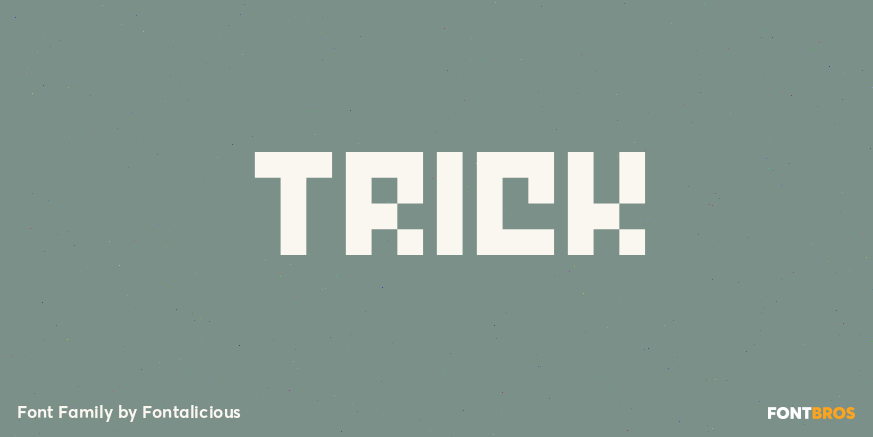
Trick
About Trick
Trick started out as me playing with some squares in Fontographer, and before I knew it, there were seven wonderful typefaces chillin on my desktop. I don\’t expect you to use all seven, I don\’t expect you to like all seven, but see, here\’s the thing:…